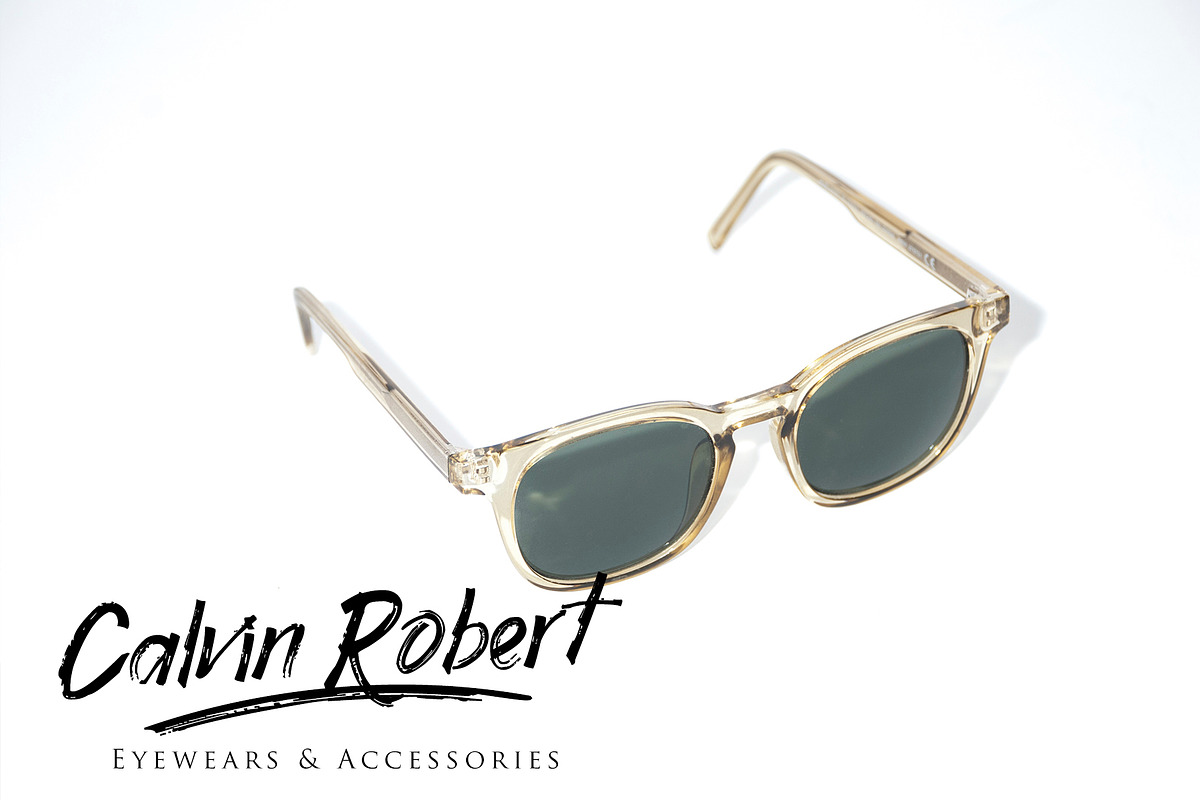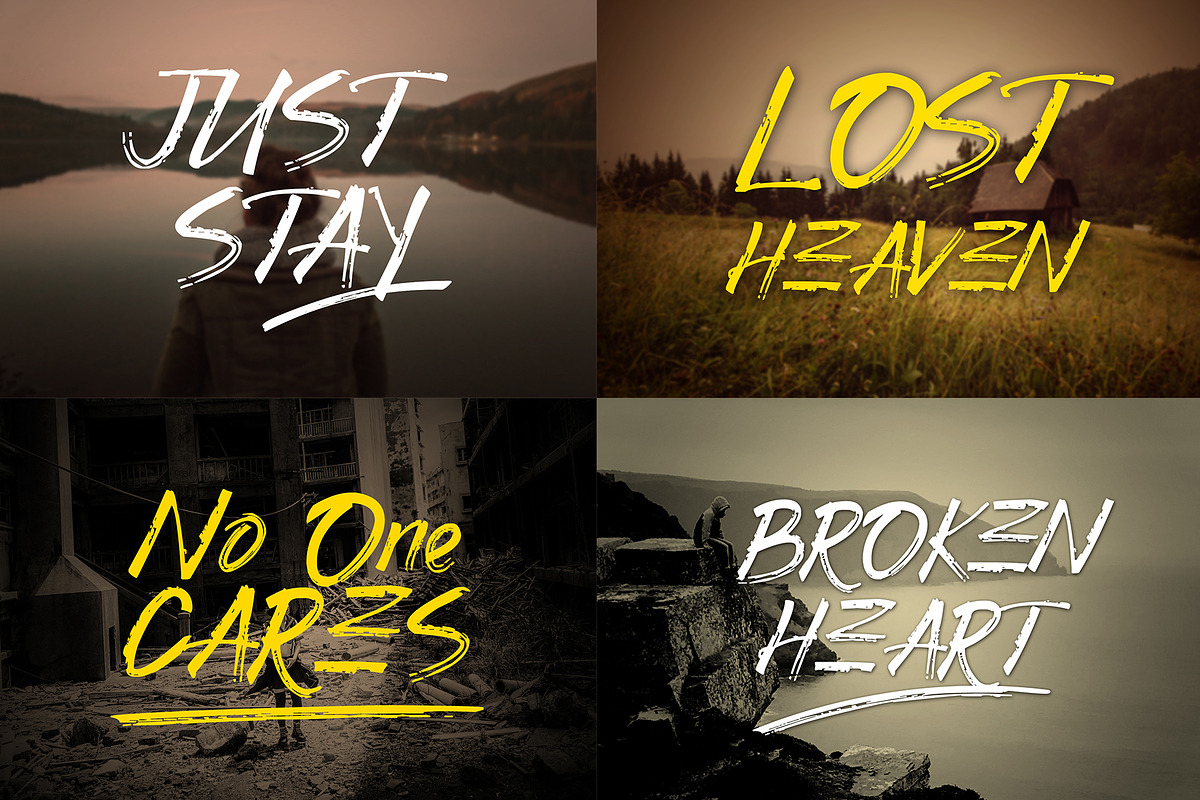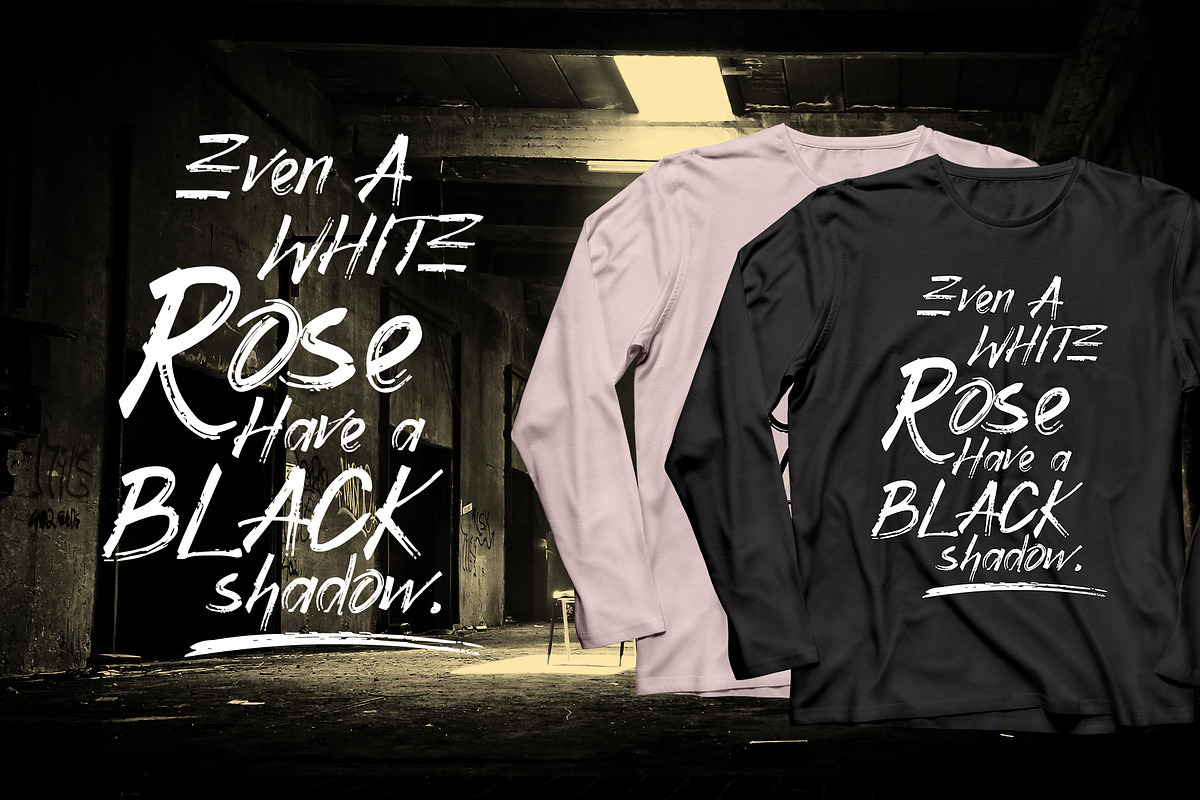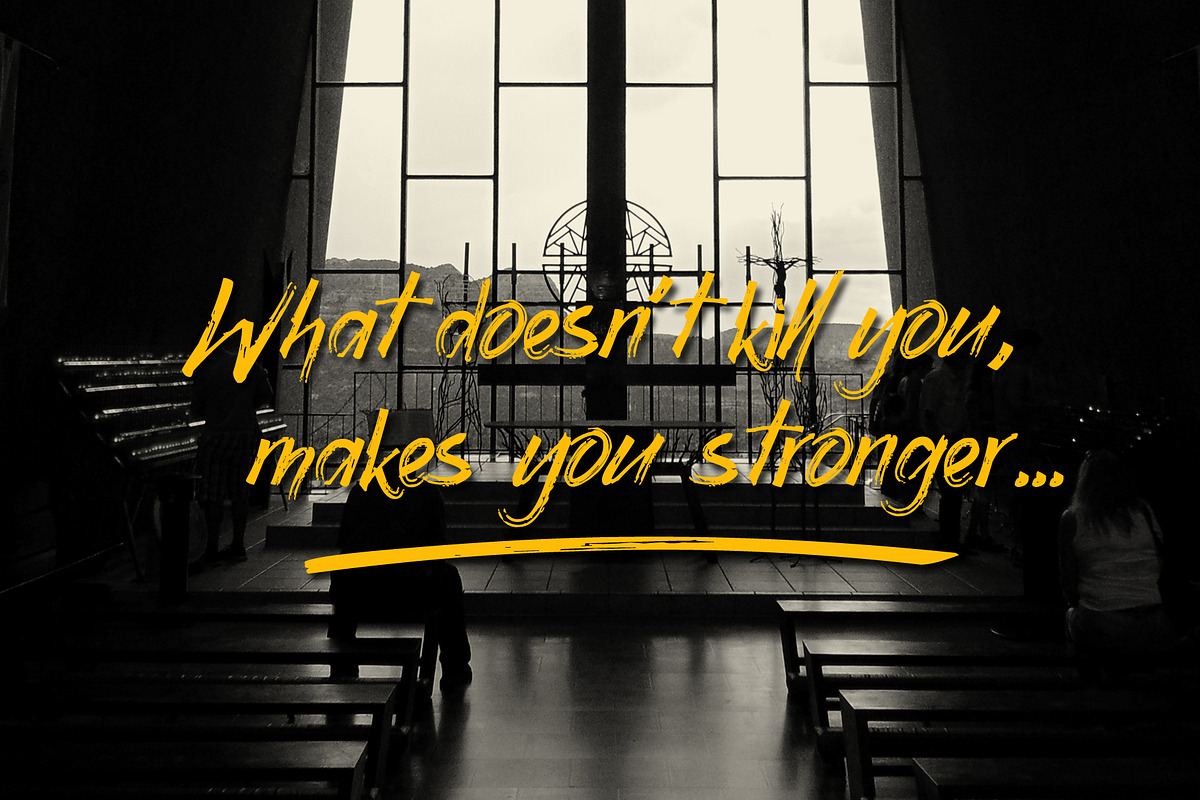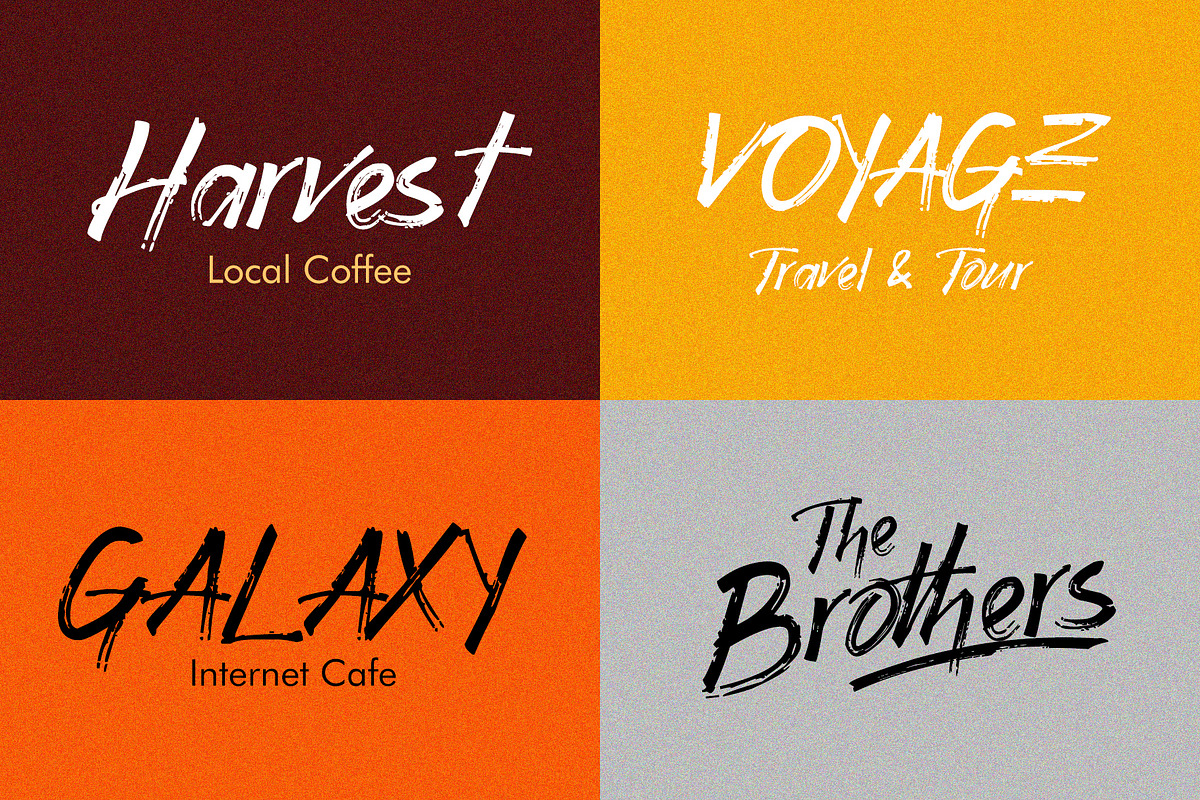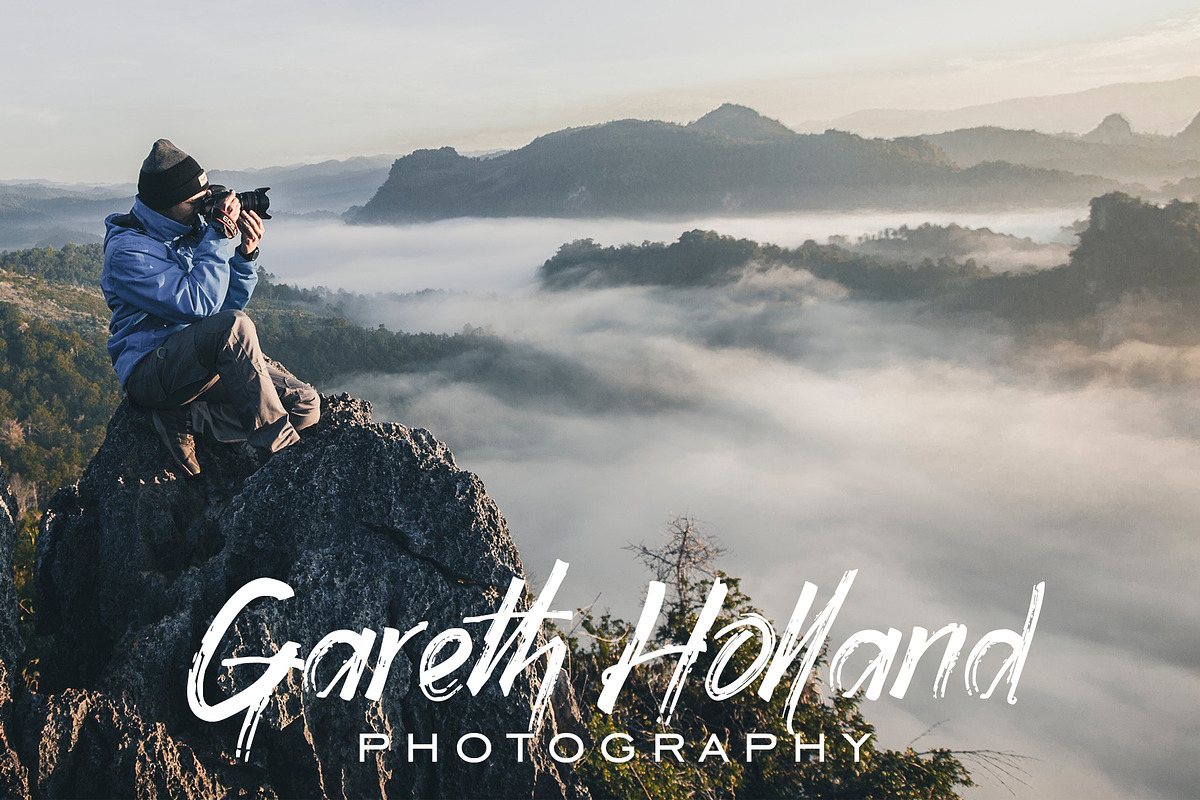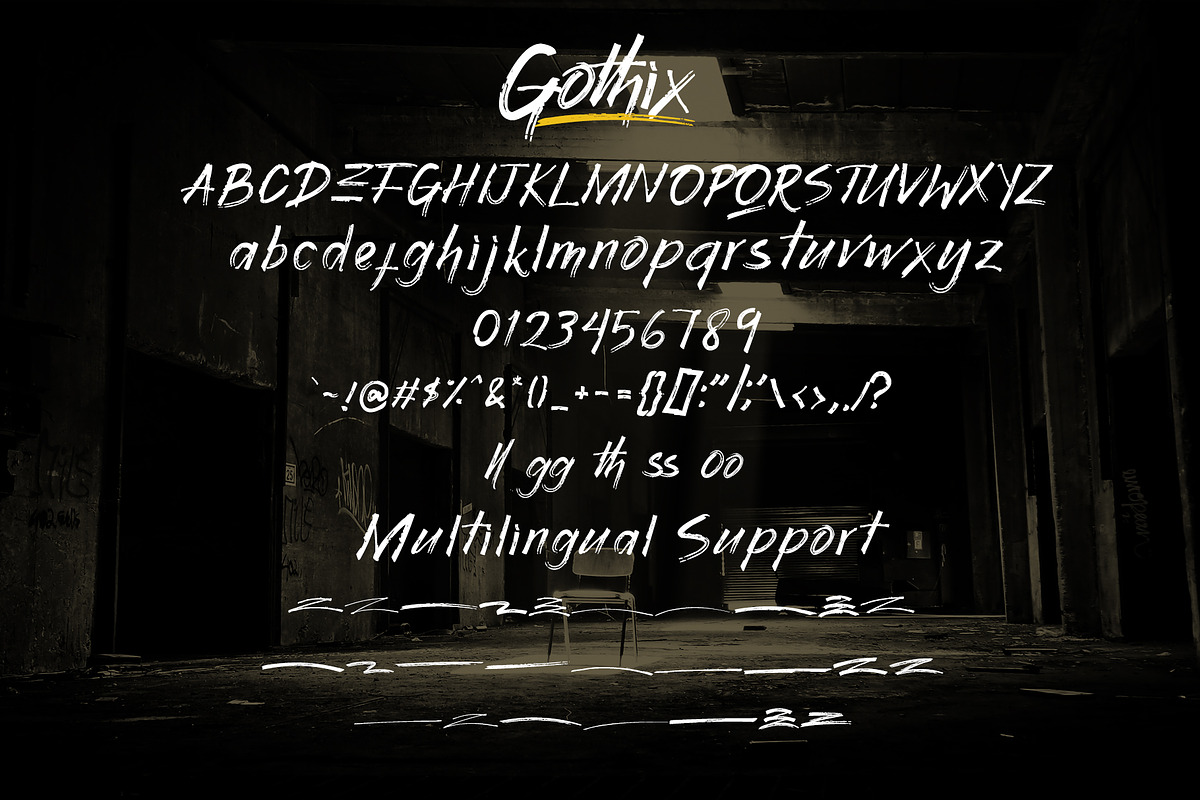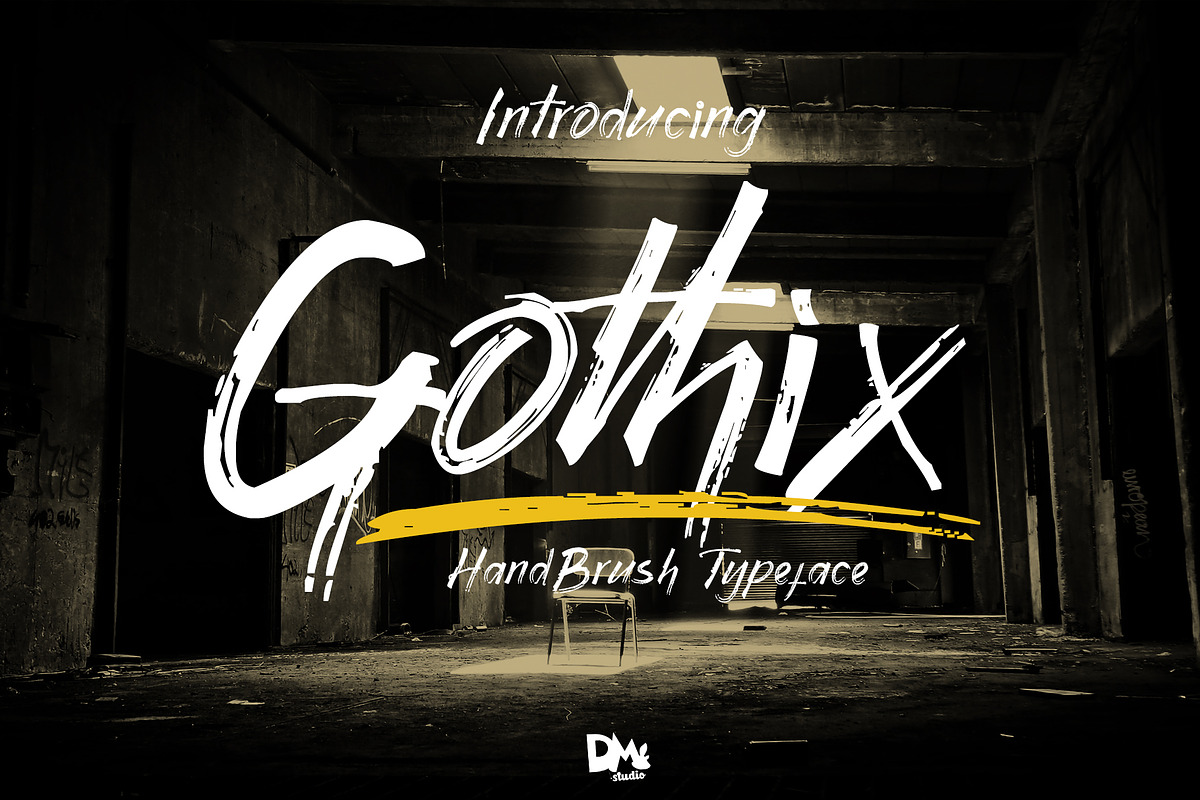
Gothix - HandBrush Typeface
Gothix, is an artistic handbrush-textured typeface. This font help you to make something which need the natural hand-written letters, like using the real brush. Great choice for logos, branding, wall arts, digital arts, posters, t-shirt printing design, packaging, quotes, etc.
Uppercases, lowercases
Numerals, Symbols & Punctuations
Multilingual Supports
Extra Underline Swashes